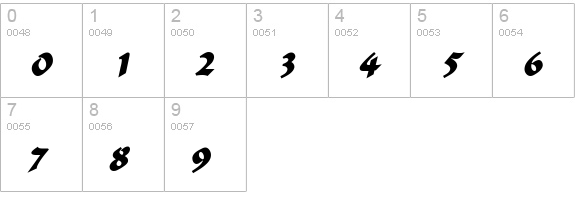
Introducing Flat Brush BoldItalic font - a striking and versatile typeface that exudes a unique blend of modernity and artistic flair. This font features bold, slanted strokes that create a bold and dynamic appearance, perfect for making a statement in your design projects. The Flat Brush BoldItalic font is ideal for a wide range of designs, from branding materials to social media graphics, posters, and more. What's even better is that this font is available for free download at FontsMarket.com. With just a few clicks, you can add this eye-catching font to your collection and start creating stunning designs that are sure to grab attention. Don't miss out on the opportunity to elevate your projects with the Flat Brush BoldItalic font - download it for free today!